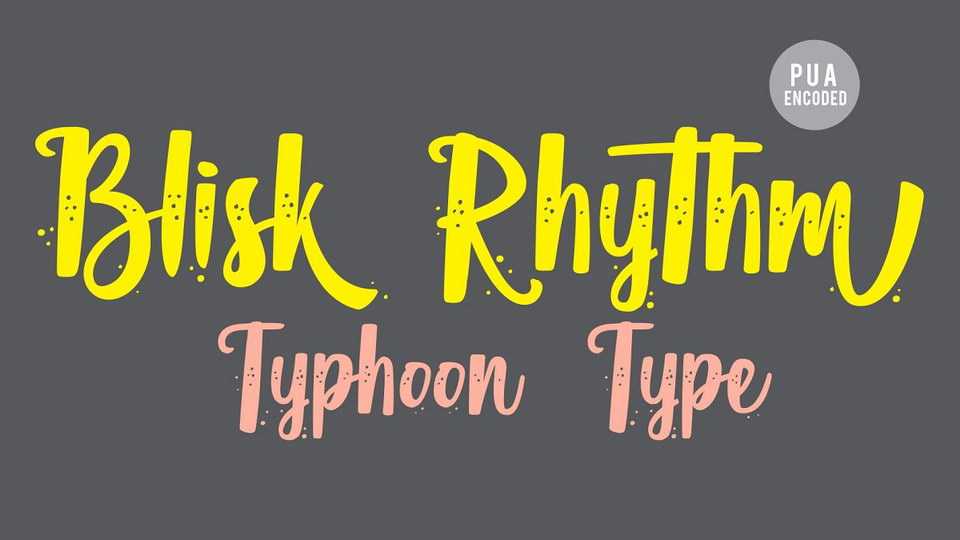
Download Blisk Rhythm font, a friendly and cute hand made typeface. Blisk Rhythm font is perfect for logos, name tag, advertising, product packaging, clothing, social media & greeting cards.
Designer: TyphoonType